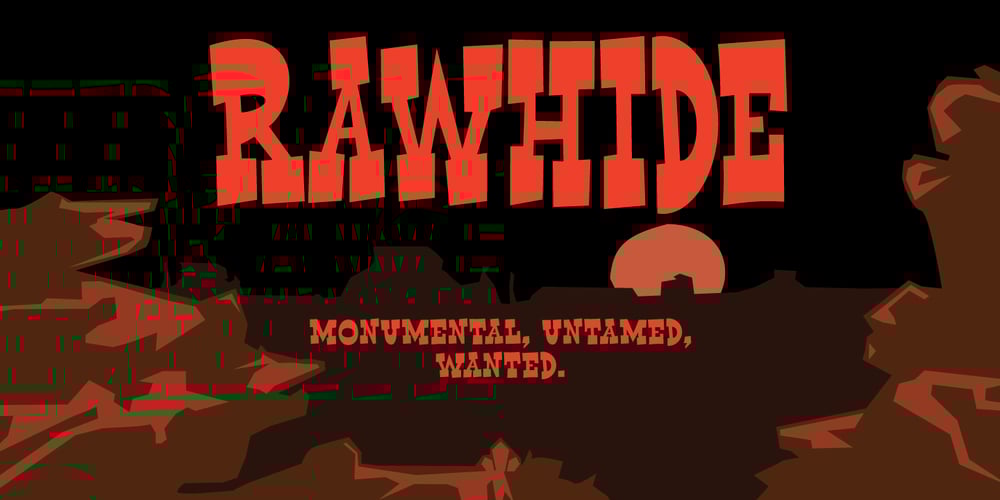
Rawhide
Rawhide font
Rawhide Font Family was designed by Patrick Griffin and published by Canada Type. Rawhide contains 2 styles and family package options. Rawhide is a fresh digitization and expansion of a very popular (yet uncredited) early 1970s film type called Yippie, which was commonly used in wild west cartoons and comics. Publishers of Lucky Luke, the famous Belgian comic by Morris, used these bouncy letters for the titling on a few of their soft cover editions, and different variations of it were used throughout the 1970s and 1980s by cartoon classic Looney Tunes and a variety of wild west animations and comics. It slowly disappeared without fanfare when desktop publishing became the norm. Here it is again now for the computer age, available as a high quality font with a complete character set that accommodates more than 20 Latin-based languages. In short, Rawhide comes with an impressive track record, and is a must for any funny cowboy design or off the wall wild west layout. This set of fonts contains a very expanded character set that includes full support for Central, Eastern and Western European languages, as well as Baltic, Turkish, Esperanto, Greek, Cyrillic and Vietnamese.